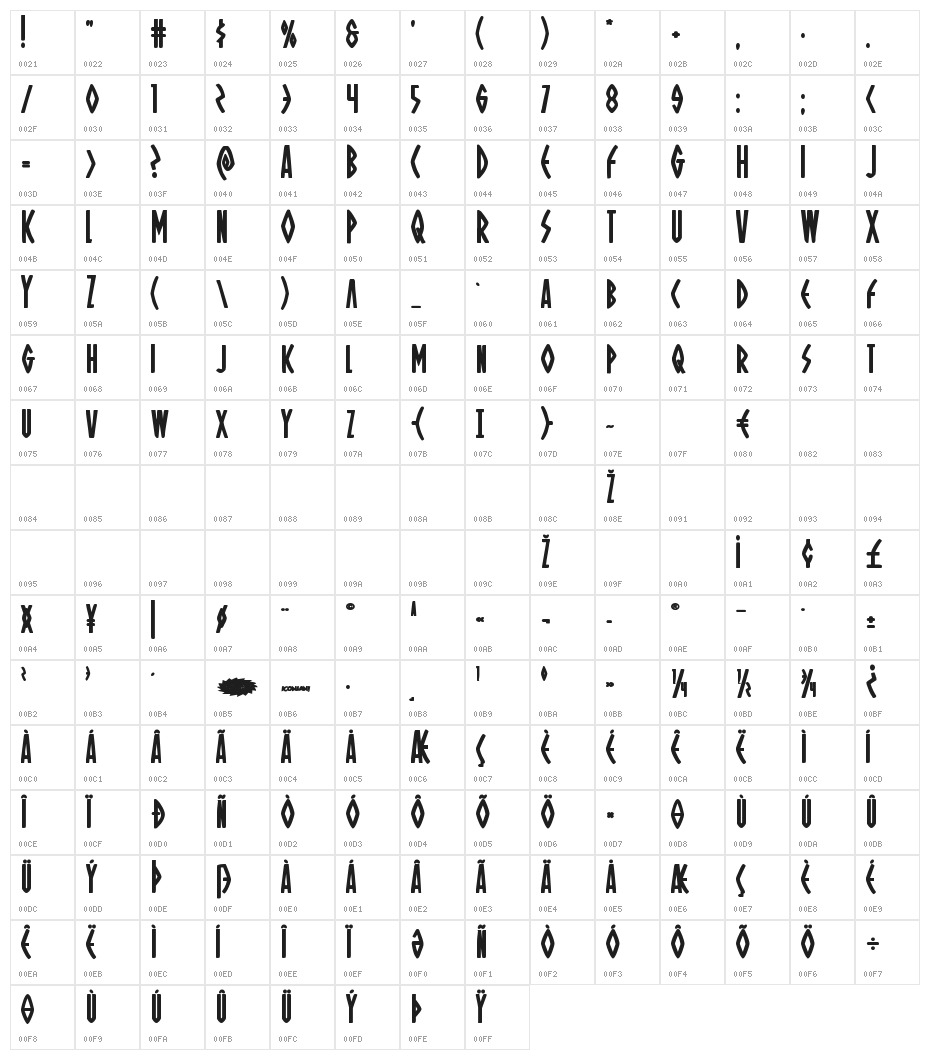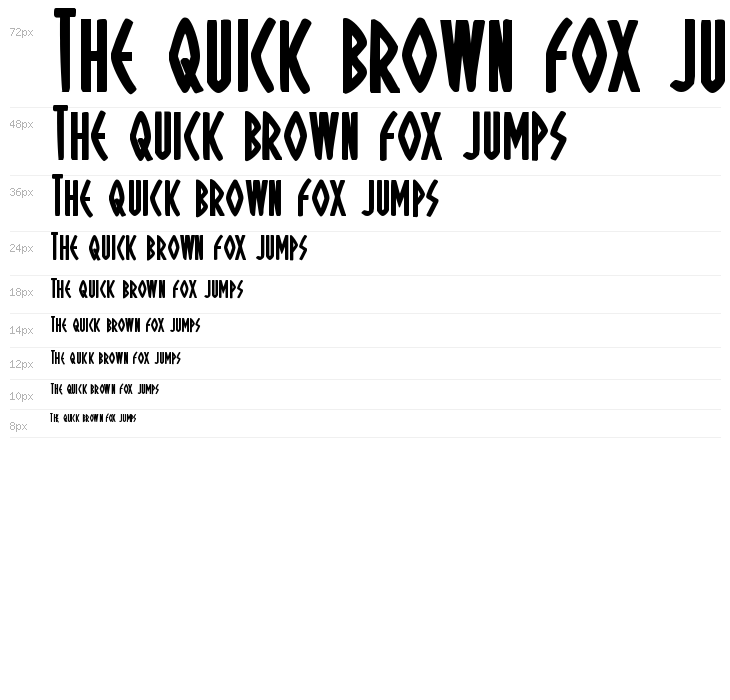
Oh Mighty Isis Bold Font
Oh Mighty Isis Bold Description
This font features a bold and striking design with sharp, angular edges and a strong presence. The uppercase letters are tall and narrow, giving a sense of height and drama. The lowercase letters maintain the same angular style, creating a cohesive look across the alphabet. Numbers and special characters are designed to match the boldness and angularity of the letters, ensuring consistency throughout. The overall style is reminiscent of ancient or mystical themes, making it suitable for projects that require a touch of the dramatic or the exotic.